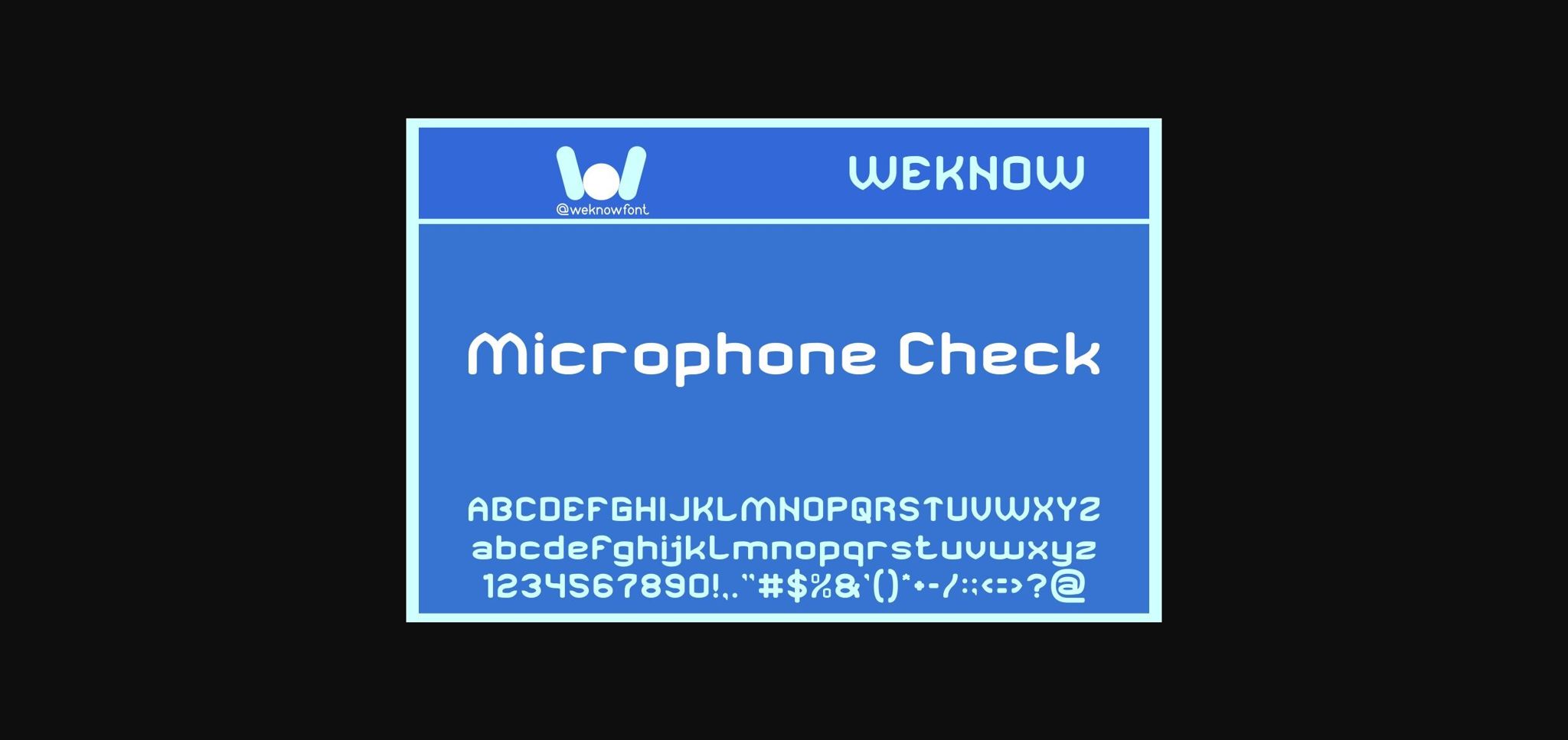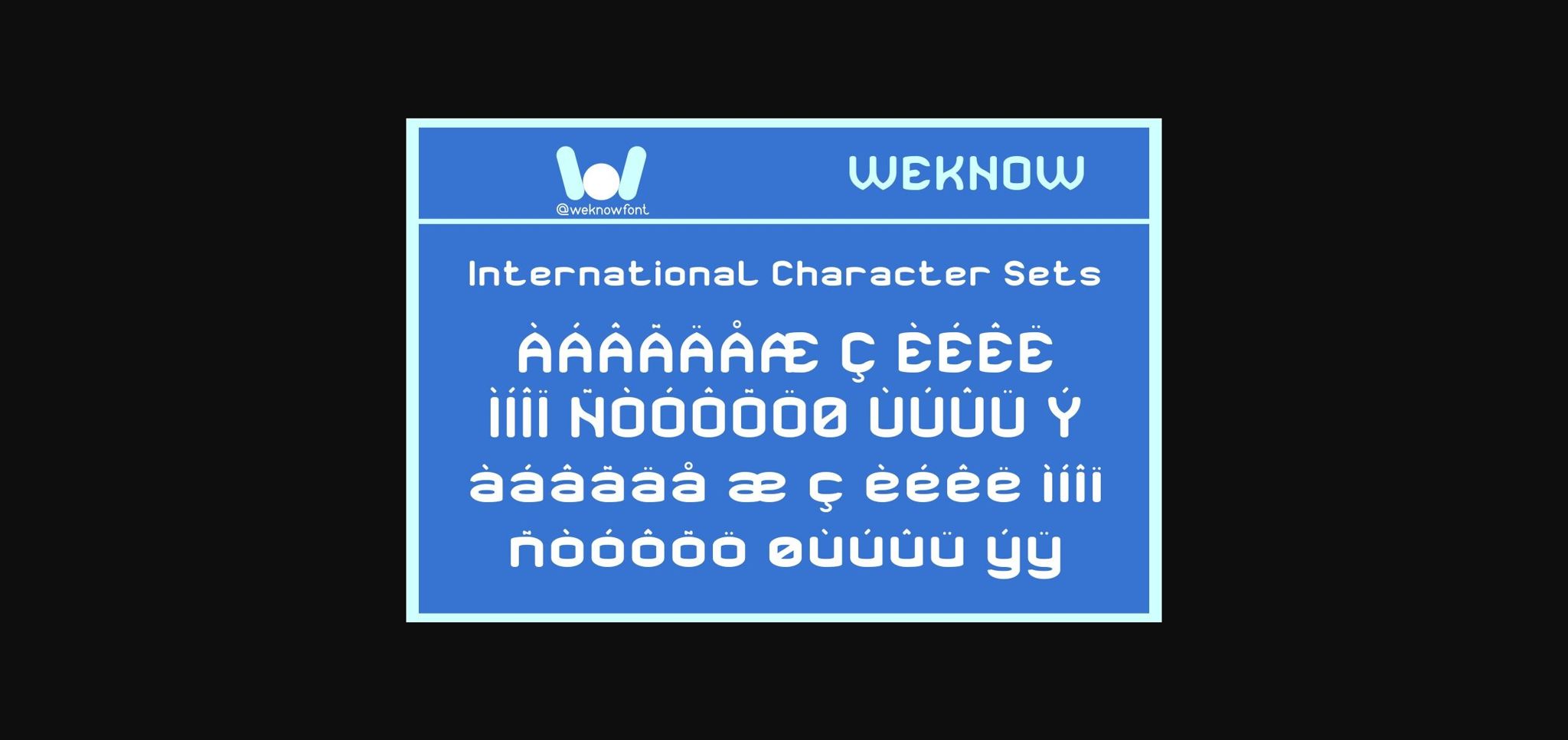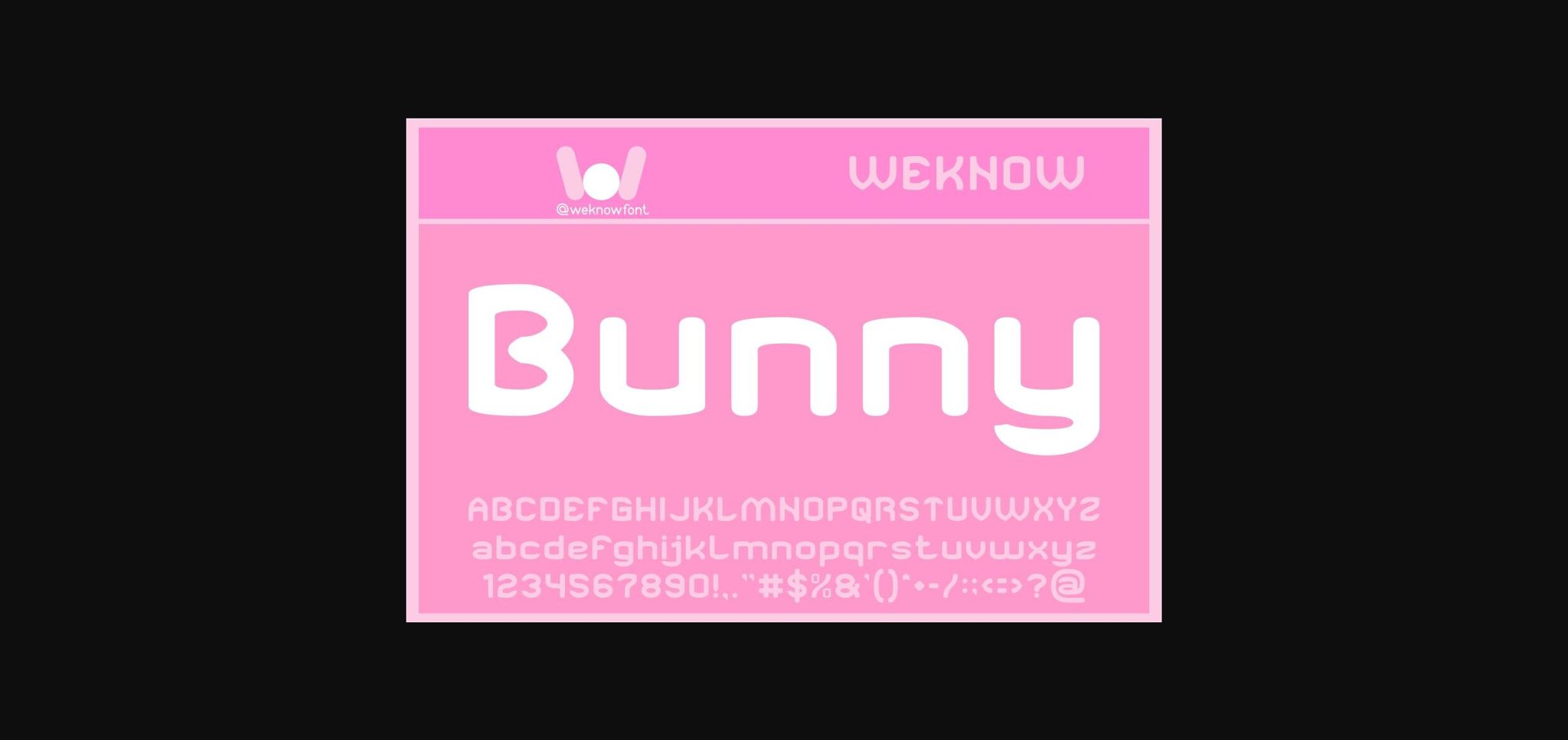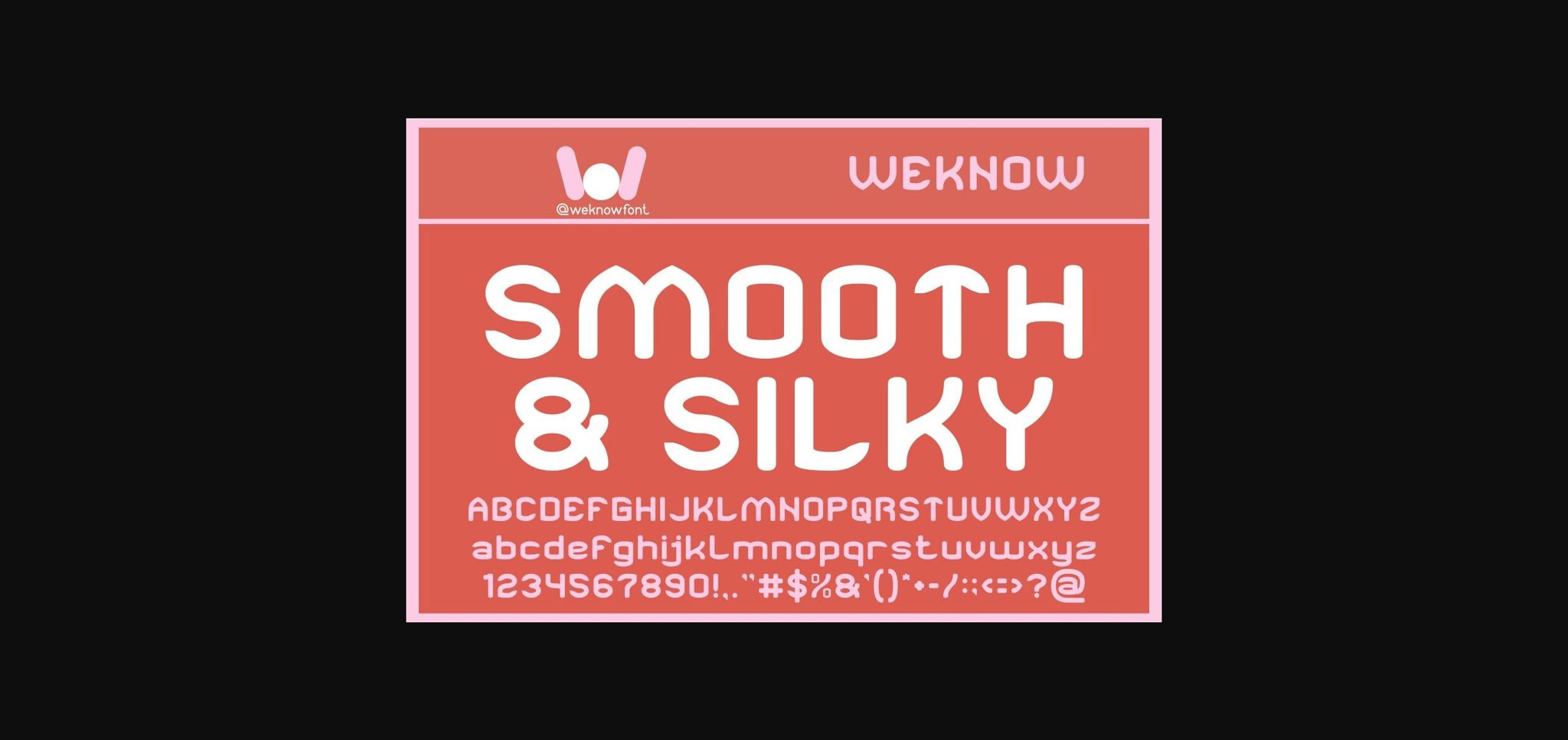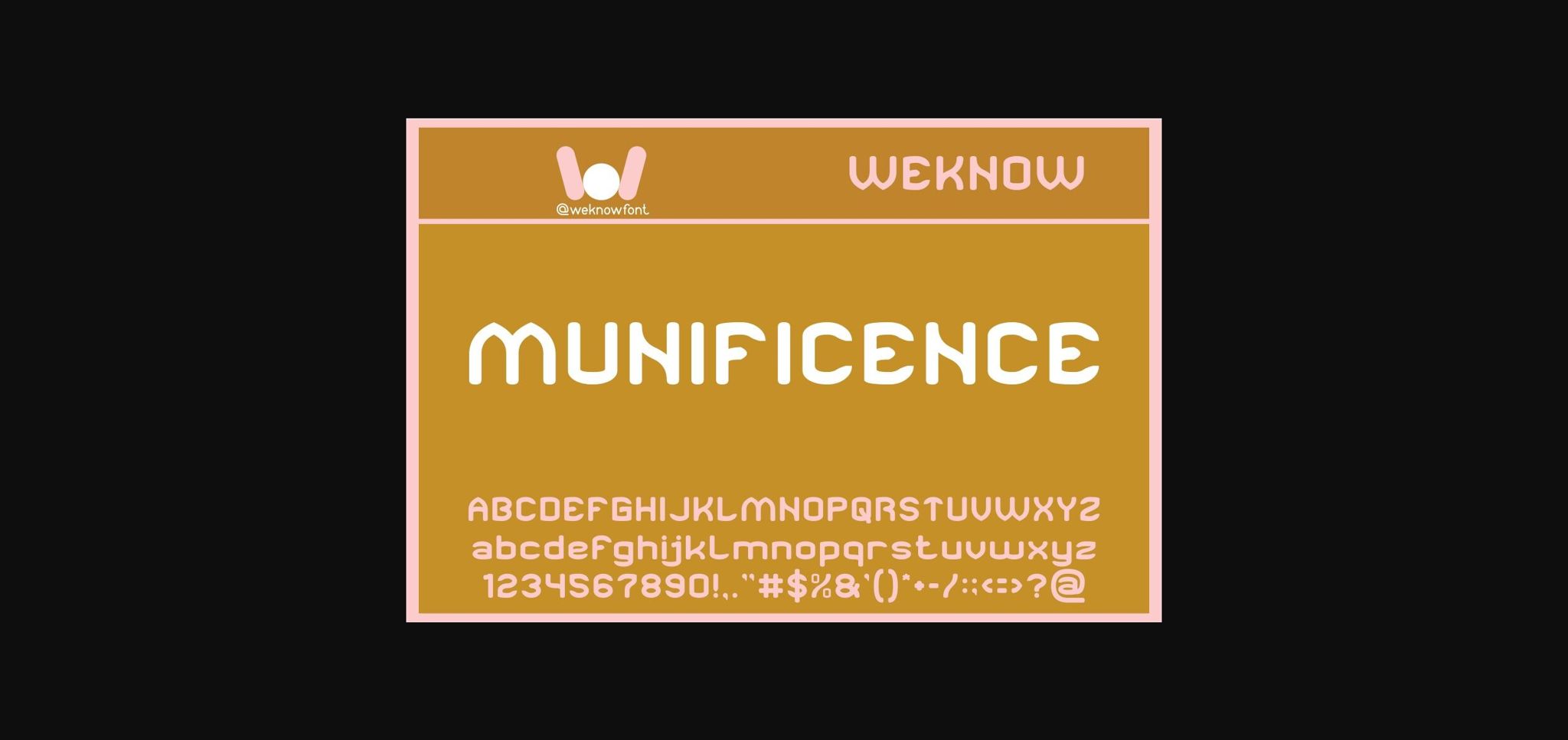
About Microphone Check Font
Microphone Check is a basic sans-serif display font suitable for a logo, logotype, headline, corporate identity, brand identity, apparel industry, poster, music, movie, game, magazine, book, comic, cartoon, YouTube, Instagram, website, or any of your creative design projects.